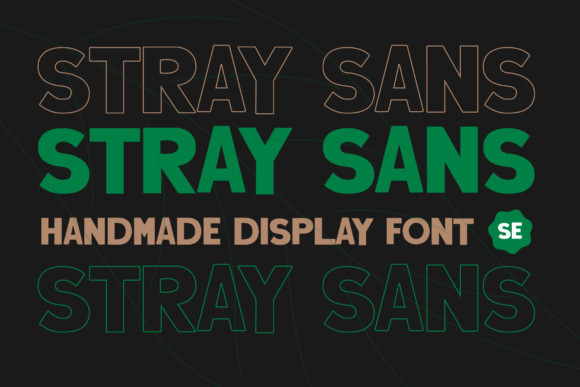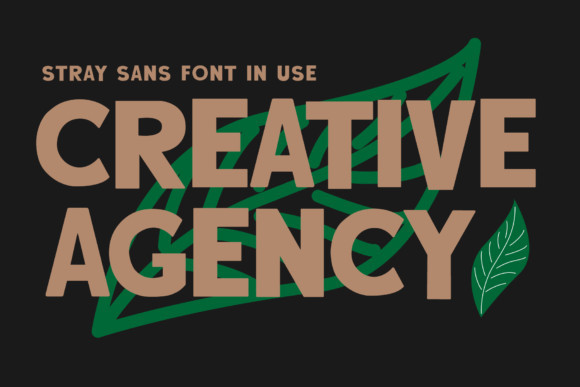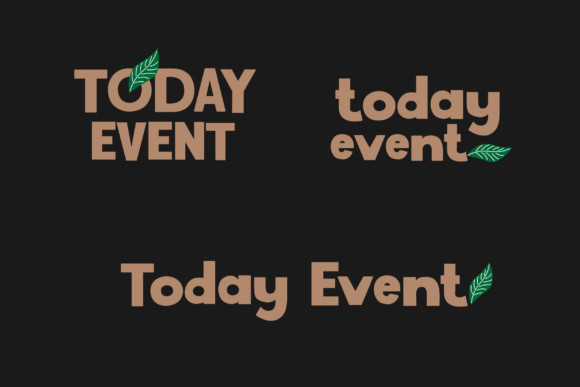
Stray Sans Font
Stray Sans is a cool, bold and thick lettered display font. No matter the topic, this font will be an incredibly asset to your fonts’ library, as it has the potential to elevate any creation.